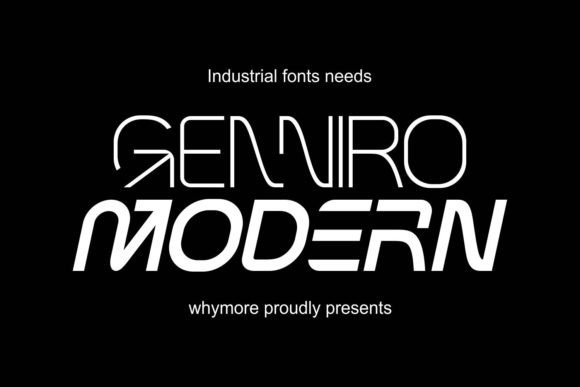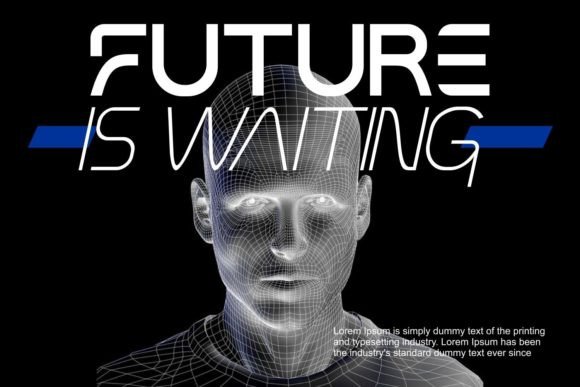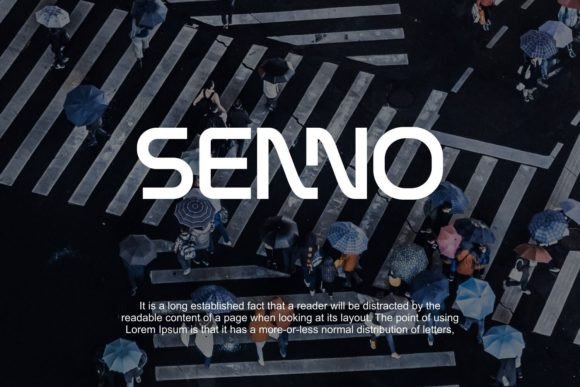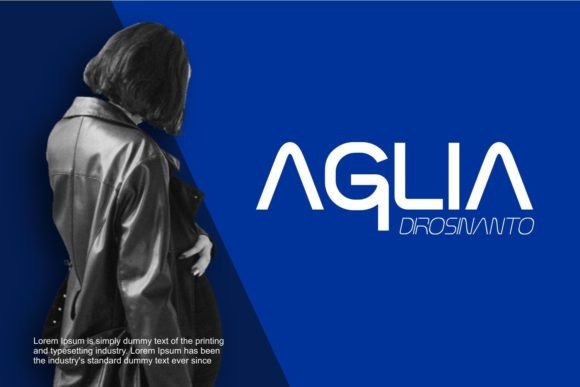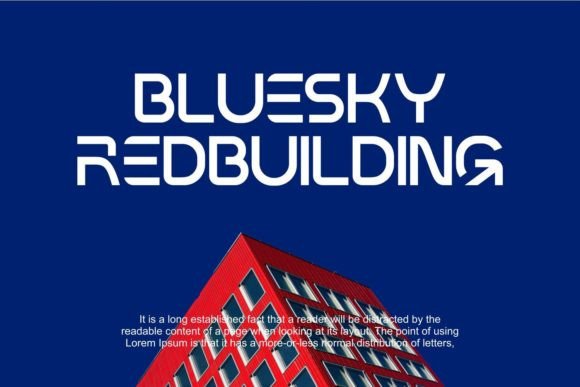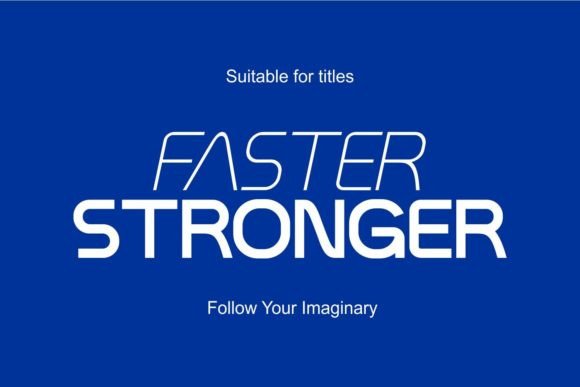
The Birth of a New Era: Unveiling the Genniro Font
Remember that moment when you were scrolling through your favorite design blog and stumbled upon a font that left you speechless? For designers, it’s a moment that sparks inspiration and sets the creative juices flowing. For us, that moment led us to the captivating Genniro Font, a typeface that embodies the essence of futurism and sophistication.
The Genniro Font is more than just a stylish addition to your design arsenal; it’s a powerful tool that can elevate your brand’s visual identity and leave a lasting impression. With its unique blend of futuristic and Y2K-inspired elements, this versatile font is perfect for creating eye-catching headlines, logos, and lettering that refuse to be limited by time.
For designers, the Genniro Font offers a wealth of creative possibilities, allowing you to push the boundaries of your imagination and bring your most daring ideas to life.
Genniro Font Key Features
- Font Family: Genniro Font is a sans-serif font family, ideal for digital displays and print materials.
- Character Count: The font family includes 800+ glyphs, covering a wide range of languages and characters.
- Unique Characteristics: Genniro Font features a clean, modern design with subtle rounded edges, making it highly legible and visually appealing.
Genniro Font Review
Overall, I think Genniro Font is an interesting and unique addition to any digital design project. ✨ The font’s geometric and sans-serif style makes it perfect for modern and minimalist designs. It’s also quite versatile, suitable for both headings and body text.
Here are some of the things I like about Genniro Font:
- ✨ Unique and modern design aesthetic that can add a touch of sophistication to any project
- ✨ Highly legible, even at small font sizes, making it suitable for digital applications
- ✨ Supports a wide range of languages, making it a great choice for multilingual projects
- ⚠️ Limited support for italics and bold styles, which may be a problem for projects that require emphasis
- ⚠️ Some characters may not be as detailed or refined as others, which can affect the overall quality of the font
Overall, I think Genniro Font is a solid choice for designers looking for a modern and unique sans-serif font. While it has some limitations, its unique design aesthetic and versatility make it a great addition to any design project.
Use Genniro Font for creating modern and elegant designs. It’s ideal for logos, branding materials, and corporate identities.
Tips: Use Genniro Font in combination with other modern fonts to create a balanced and harmonious design.
Alternatives to Genniro Font for Designers
Montserrat is a sans-serif font designed by Julieta Ulanovsky. It is ideal for use in digital products, such as mobile apps and websites, due to its clean and modern design. Montserrat is similar to Genniro Font in its geometric style but has a more urban feel. Use Montserrat when you need a font that is highly legible and suitable for a wide range of digital platforms.
Lato is a sans-serif font designed by Łukasz Dziedzic. It is a versatile font suitable for both body text and headings. Lato has a slightly rounded design that makes it easier to read, especially in longer blocks of text. Compared to Genniro Font, Lato is more rounded and has a softer feel. Use Lato when you need a font that is both readable and visually appealing.
Open Sans is a sans-serif font designed by Steve Matteson. It is a highly legible font suitable for digital products, such as websites and mobile apps. Open Sans has a clean and modern design that makes it easy to read, even in small sizes. Compared to Genniro Font, Open Sans is more straightforward and lacks the geometric feel of Genniro Font. Use Open Sans when you need a font that is highly legible and easy to read.
Poppins
Poppins is a sans-serif font designed by Indian Type Foundry. It is a modern font with a geometric feel, similar to Genniro Font. Poppins has a clean and minimalist design that makes it suitable for use in digital products, such as websites and mobile apps. Compared to Genniro Font, Poppins is more modern and has a more subtle feel. Use
Is Genniro Font compatible with accessibility features?
Yes, Genniro Font is designed to be compatible with accessibility features, including font size adjustment, high contrast mode, and screen reader support. The font’s design and metrics are optimized for readability and usability, ensuring that it meets the latest accessibility standards.